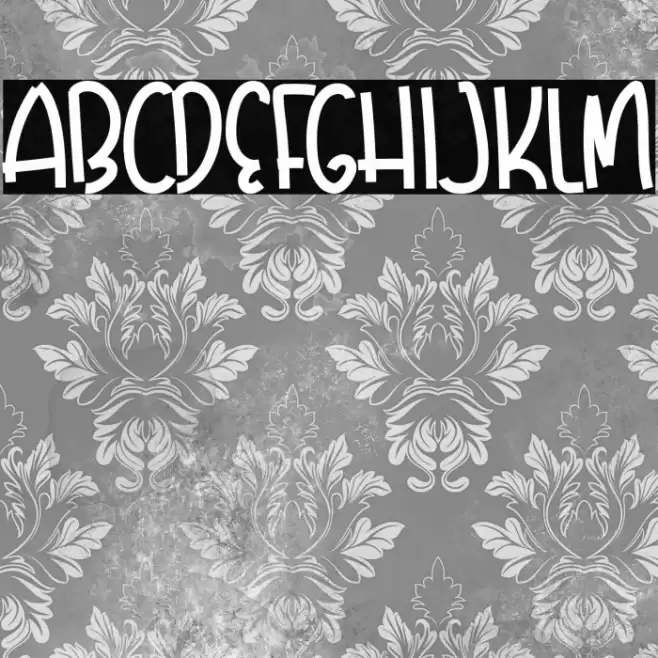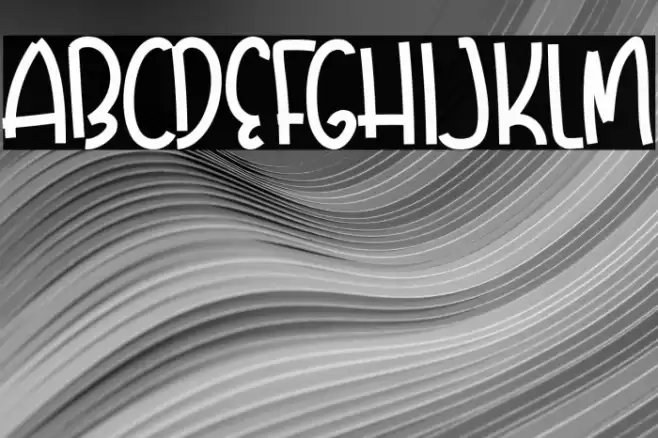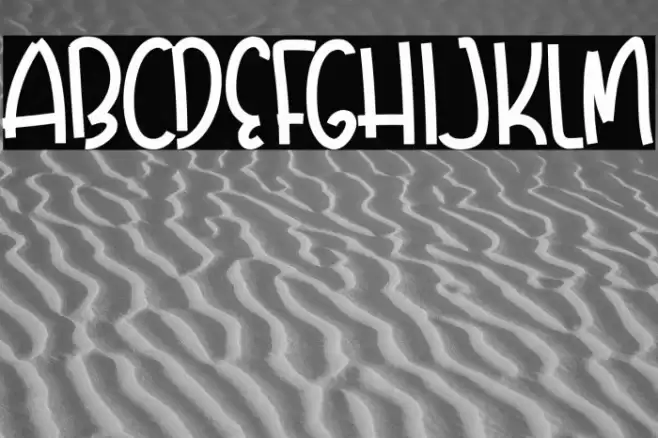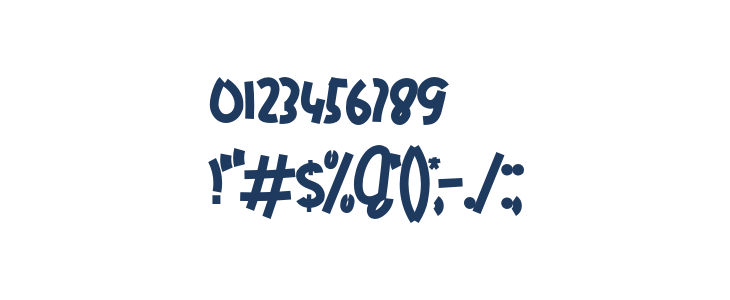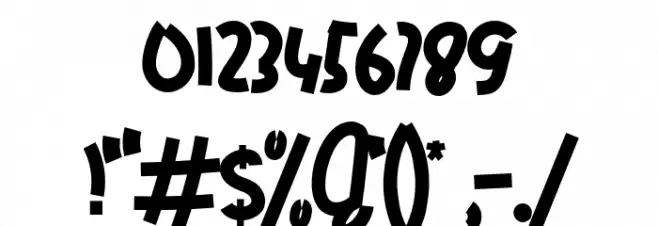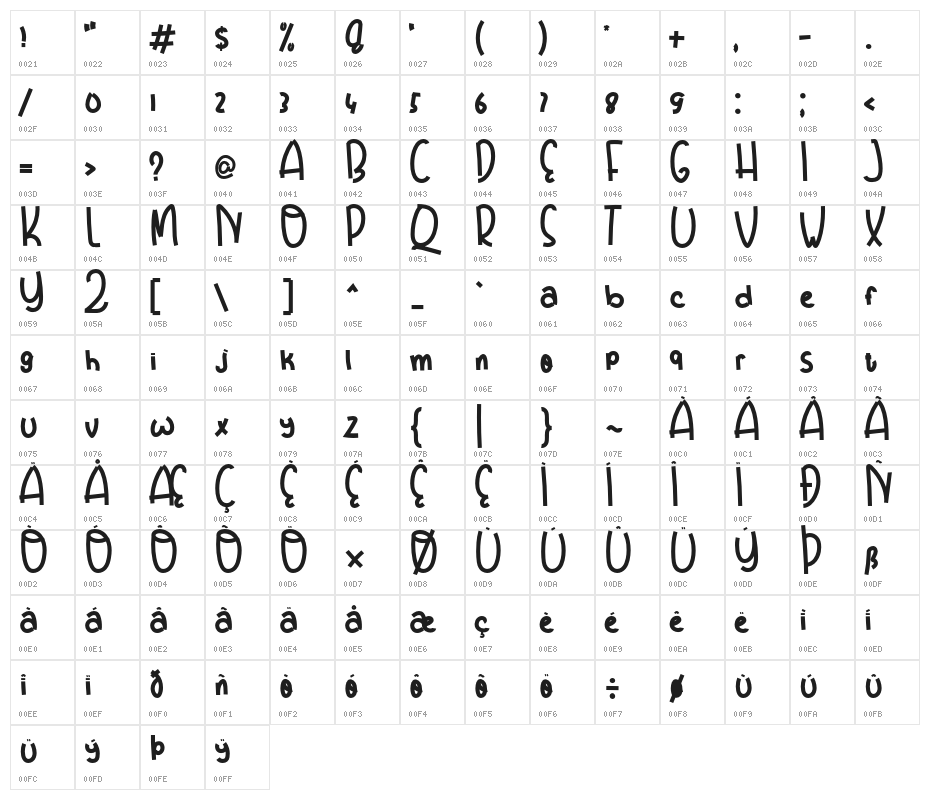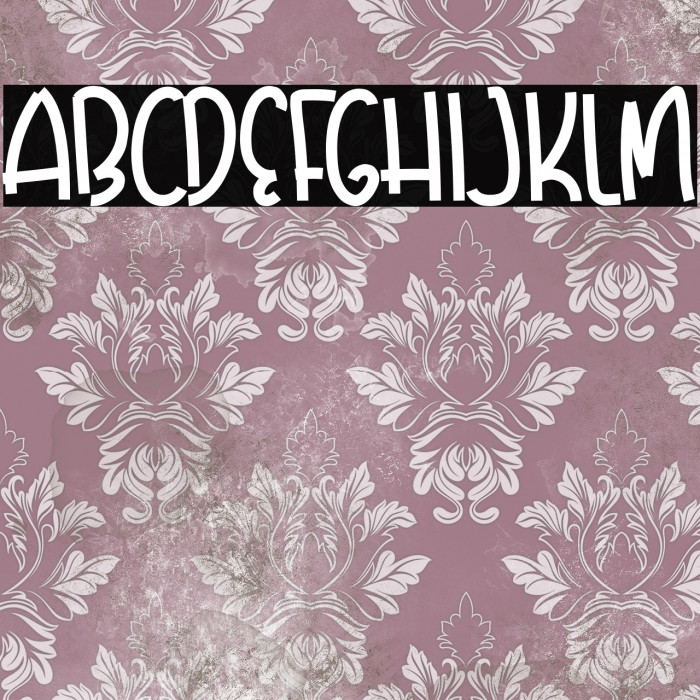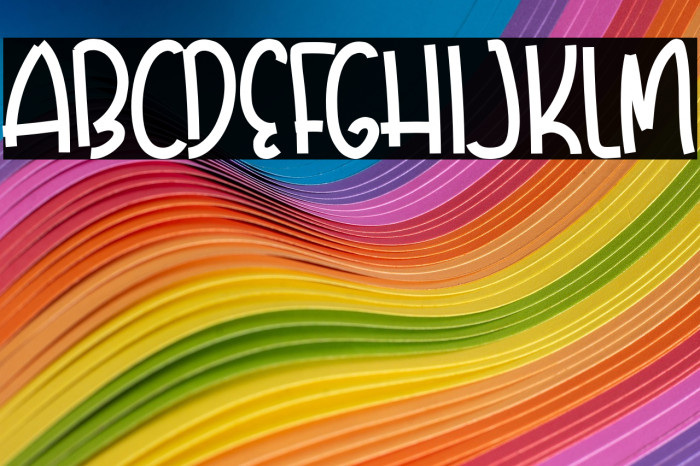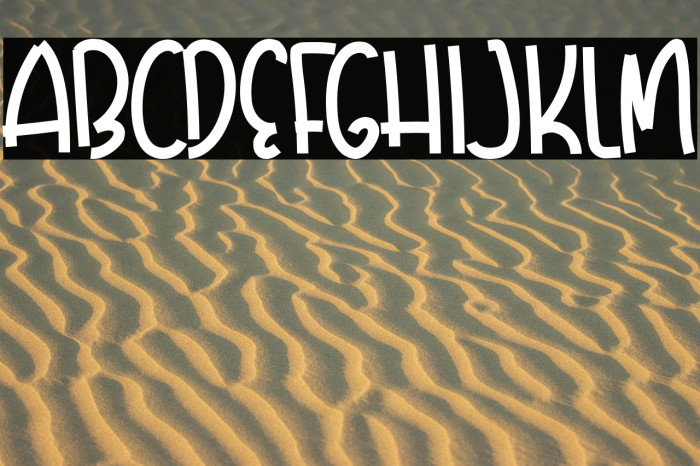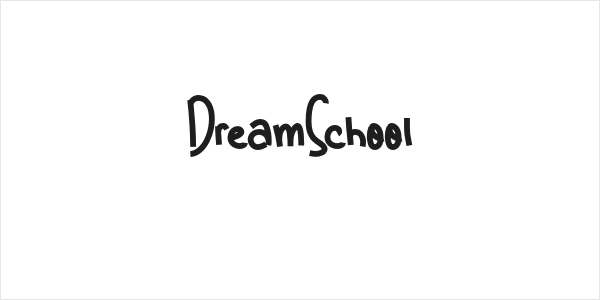
DreamSchool Font
DreamSchool Description
This playful and whimsical font features bold, rounded characters with a hand-drawn feel. The letters are slightly irregular, giving them a lively and dynamic appearance. The uppercase and lowercase letters maintain a consistent style, with exaggerated curves and a friendly demeanor. Numbers and special characters follow the same playful theme, making this font ideal for creative projects. The overall look is casual yet impactful, perfect for capturing attention with its unique charm.
A playful, hand-drawn font with bold, rounded characters from Uncategorized fonts.
- Font: DreamSchool
- Proposed Projects: Ideal for children's books, playful branding, greeting cards, and creative posters.
- Overall Style: Playful, Whimsical